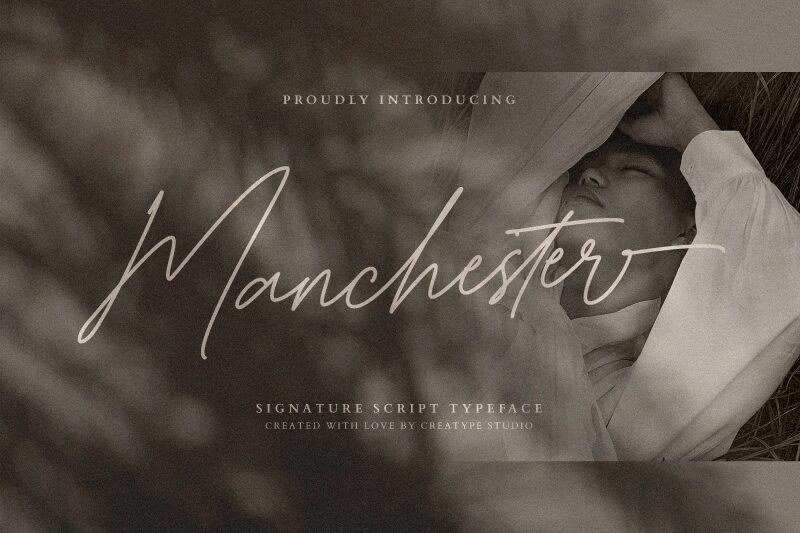
Manchester Regular
Manchester, created by renowned designer Rian Rahardi, is a stunning handwritten signature font that exudes elegance and sophistication. Its thin weight and condensed width make it perfect for use in projects that require a touch of refinement, such as wedding invitations, business cards, and luxury brand logos. This font adds a personal touch to any design with its handwritten style that looks like it was signed by hand. Manchester is sure to impress your audience with its unique and chic charm. Let this font take your designs to the next level of elegance!